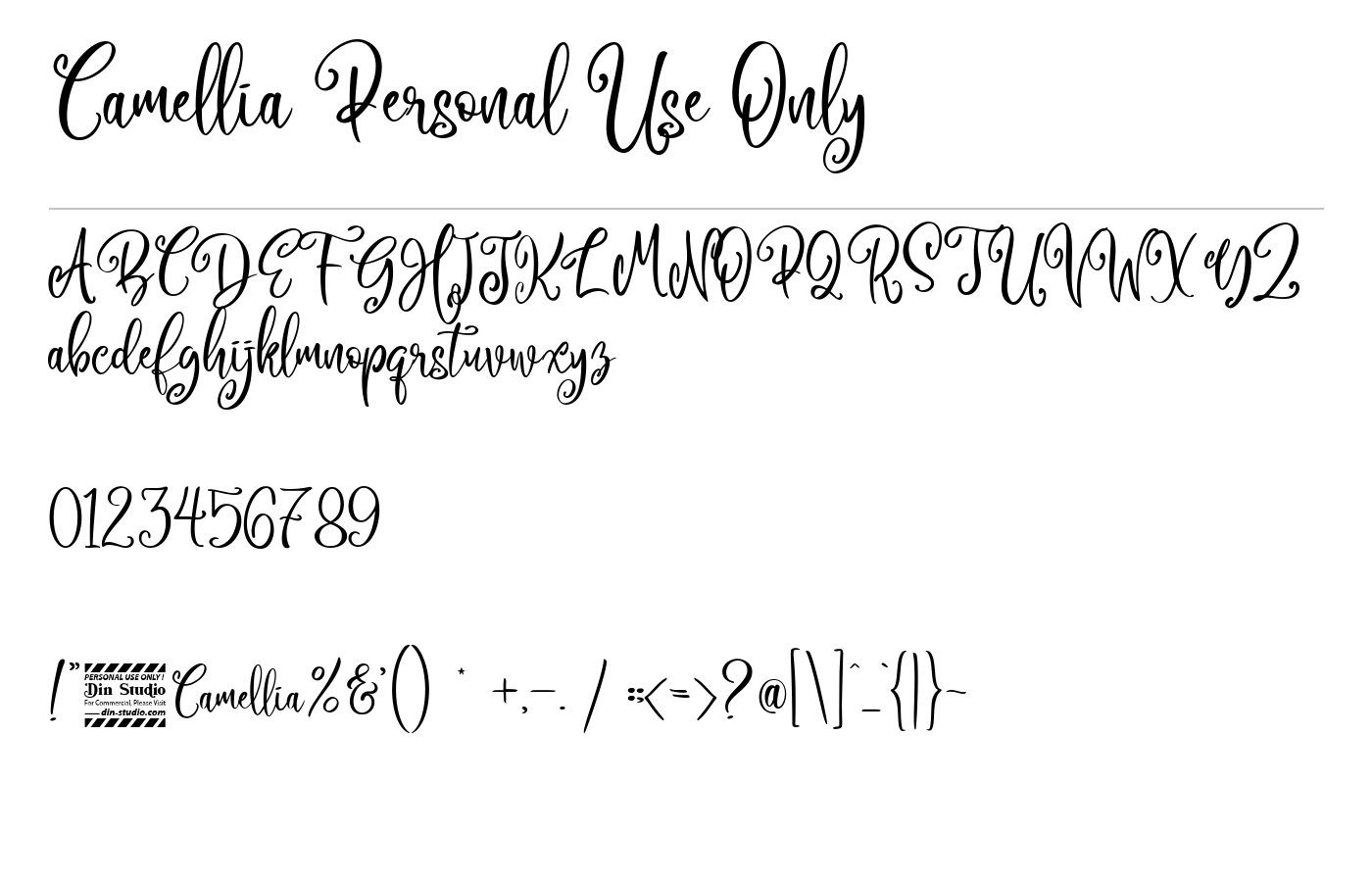
Camellia Personal Use Only is an elegant, handwritten script font with tall, narrow letterforms and delicate, flowing strokes. Its refined swirls and loops give it a charming, sophisticated feel, perfect for invitations, branding, and feminine designs. This font works best for headlines and decorative uses where a stylish, graceful touch is desired.
Camellia Personal Use Only Font
About Camellia Personal Use Only Font
| Font family | Camellia Personal Use Only Font |